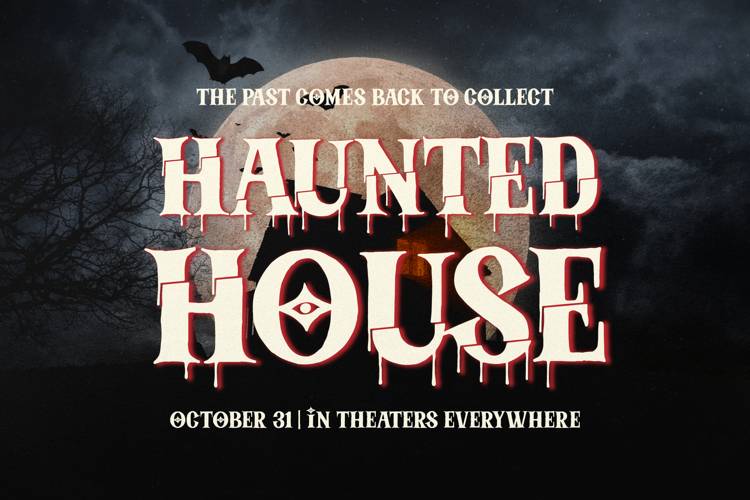
Sliced Phantom Font
Sliced Phantom | Spooky Halloween Font product packaging, mugs, quotes, posters, shopping bags, t-shirts, book covers, name card, invitation cards, greeting cards, label, photography, watermark, special events, and all your other lovely projects that need a horror font taste.